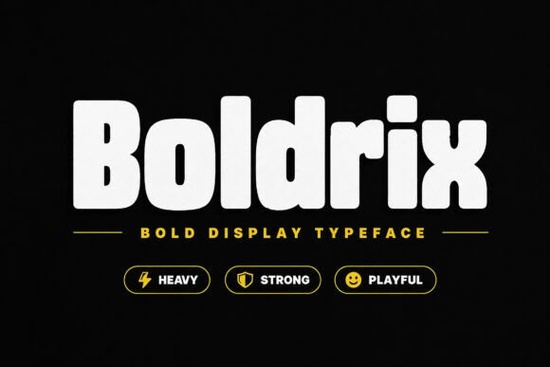
Finding the right typography for high-impact projects often comes down to choosing a typeface with enough visual weight to grab attention immediately. The Boldrix Font delivers exactly that through its chunky letterforms and powerful presence. Designed for creators who need their text to stand out, this bold display typeface blends a modern urban feel with a fun, approachable personality. Whether you are designing streetwear apparel, gaming titles, or energetic brand identities, having a thick and confident structure makes a massive difference in how your audience reads your message. It bridges the gap between aggressive impact and friendly design.
What kind of projects work best with heavy display typefaces?
Thick, playful curves are ideal for designs that need to feel loud and energetic without being overly serious. You will often see this style used in kids' branding, where readability and a friendly vibe are crucial to engaging both children and parents. It also works exceptionally well for event posters, product packaging, and bold logos. If your current project requires a completely different mood, you might want to explore a hand-painted brush alternative for a more organic look, or perhaps lean into darker, horror-themed lettering for seasonal Halloween campaigns. However, for modern, upbeat commercial work, a heavy sans-serif style provides the perfect foundation.
How do you pair chunky fonts without cluttering the design?
When working with such a dominant primary typeface, contrast is your best tool for maintaining a clean layout. Because the main letters are so thick, your secondary text needs to be highly legible and relatively simple. Try pairing your bold headlines with structured, modern sans-serif options for body copy or subheadings. This keeps the visual hierarchy clear and easy to navigate. Alternatively, if you want to add a bit of human touch to a rigid layout, mixing in textured, ink-traced script styles can soften the overall composition. Just remember to keep the supporting text much smaller than your main headline to let the heavy display font do all the talking.
Is this typeface suitable for print-on-demand merchandise?
Print-on-demand sellers rely heavily on typography that translates well from digital screens to physical products. A confident, thick structure means the letters will remain crisp and readable even when printed on textured fabrics or smaller items like vinyl stickers and enamel pins. Streetwear brands, in particular, benefit from this kind of modern urban aesthetic on t-shirts, tote bags, and hoodies. The solid shapes hold ink well and do not lose fine details during the screen printing or direct-to-garment process. When setting up your design files, always ensure you are using high-resolution canvases so the edges stay sharp.
Where can small businesses use this typography for digital branding?
Quick checklist before exporting your final design
- Check the color contrast: Ensure your background color allows the thick letters to pop without causing visual vibration for the reader.
- Adjust the tracking: Heavy display fonts often look much better with slightly tighter letter spacing when used in large headlines.
- Test overall readability: Step back from your monitor or print a small test page to confirm the chunky letterforms are easy to read at a quick glance.